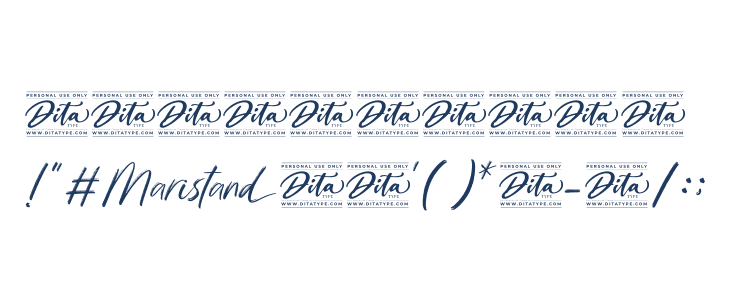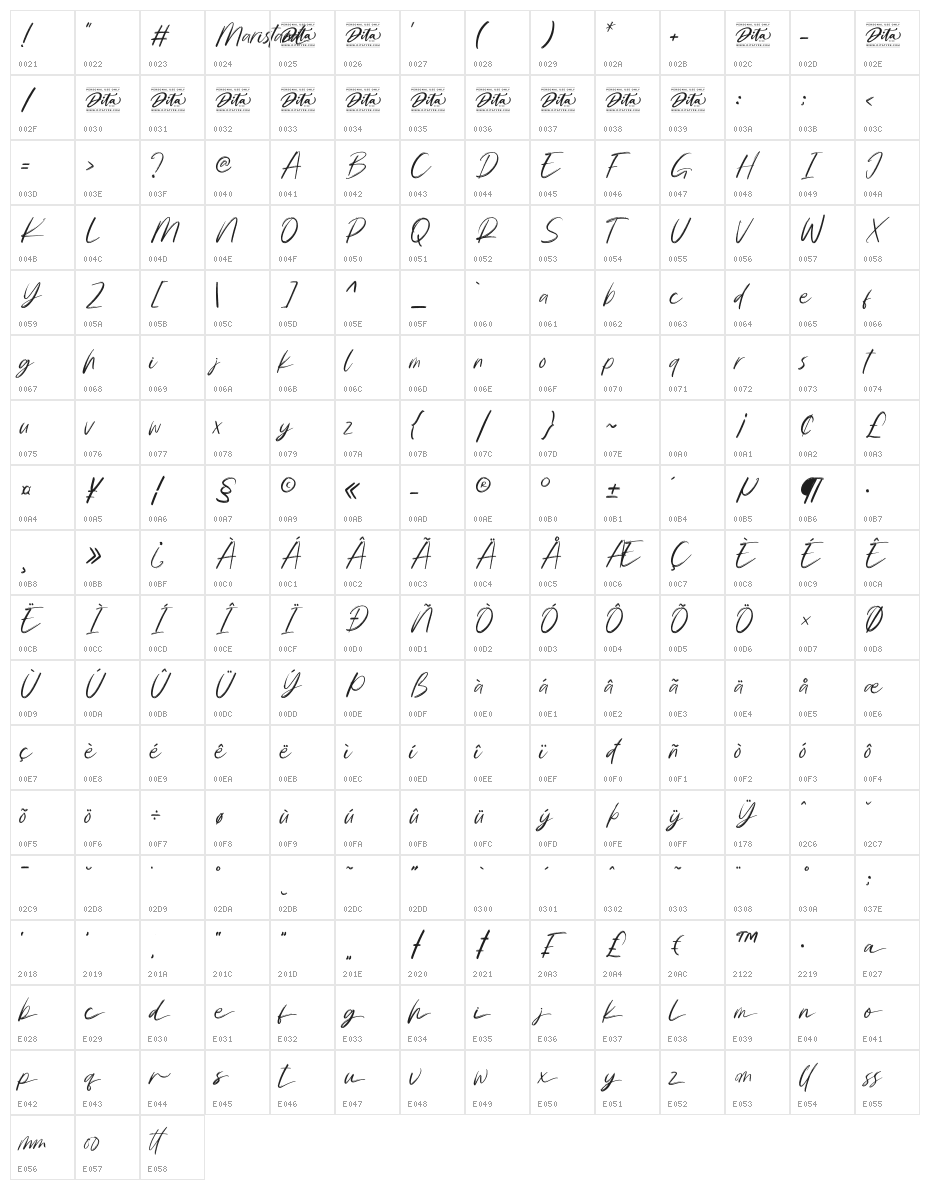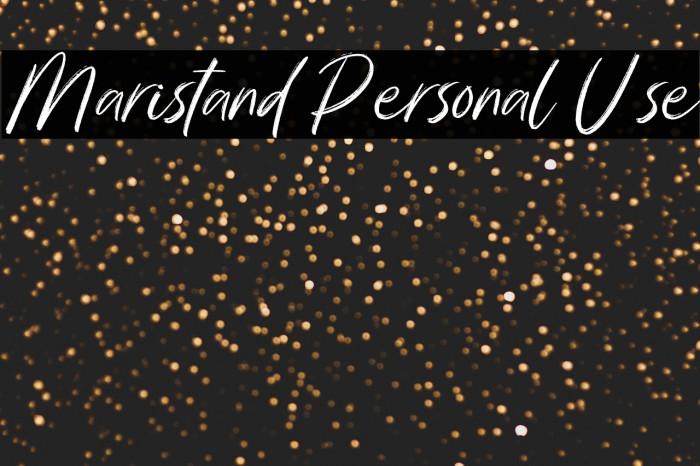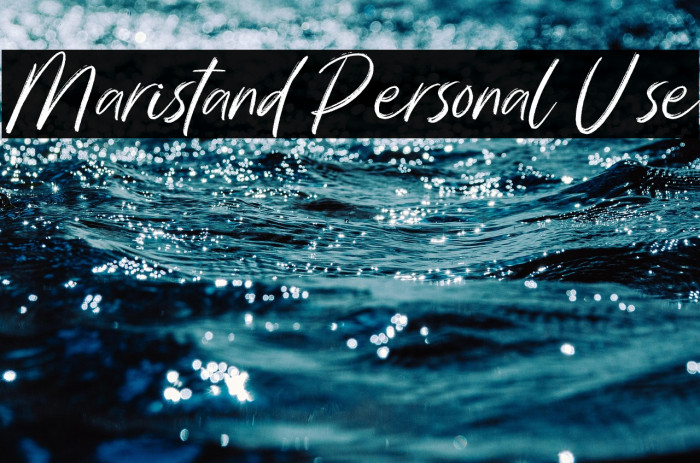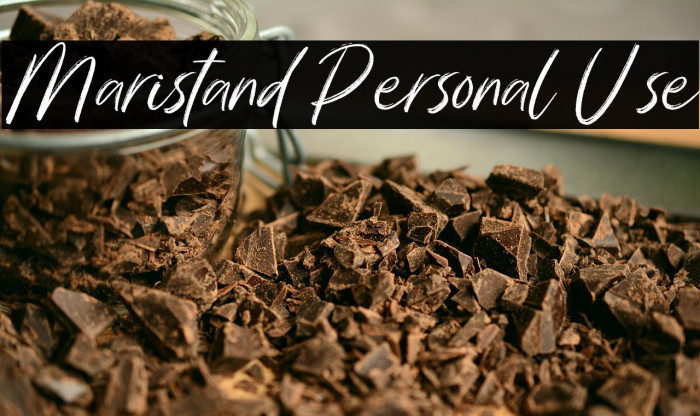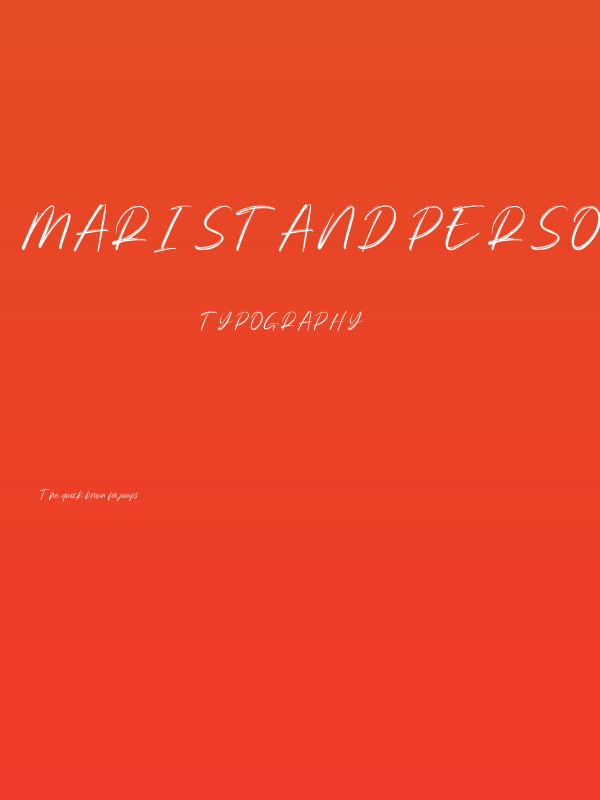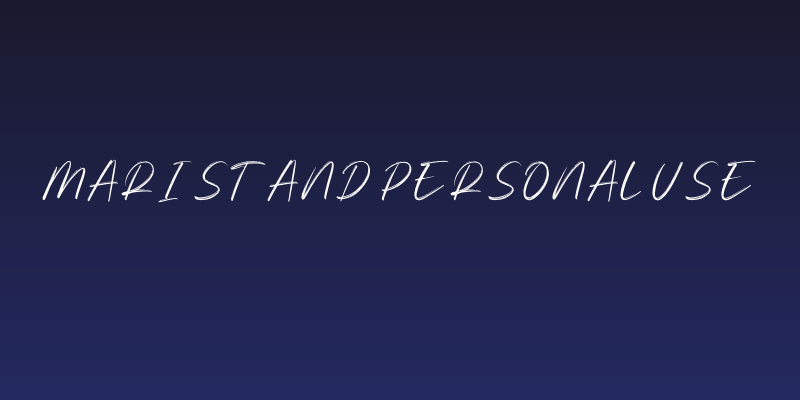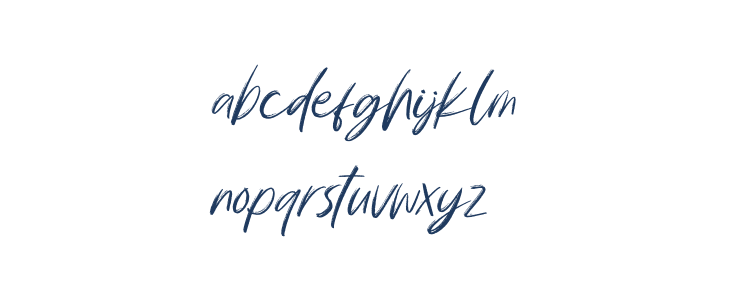
Maristand Personal Use Font
Maristand Personal Use Description
This font features a dynamic and fluid handwritten style, characterized by its elegant and flowing letterforms. The uppercase letters are tall and slightly slanted, giving a sense of movement and grace. The lowercase letters maintain a consistent style, with smooth curves and a natural, organic feel. The strokes vary in thickness, adding a lively and energetic touch to the overall appearance. The numerals and special characters are crafted with the same attention to detail, ensuring a cohesive look throughout. This font exudes a personal and artistic flair, making it suitable for creative and expressive projects.
| Proposed Projects | Ideal for invitations, greeting cards, branding, and artistic projects that require a personal touch. |